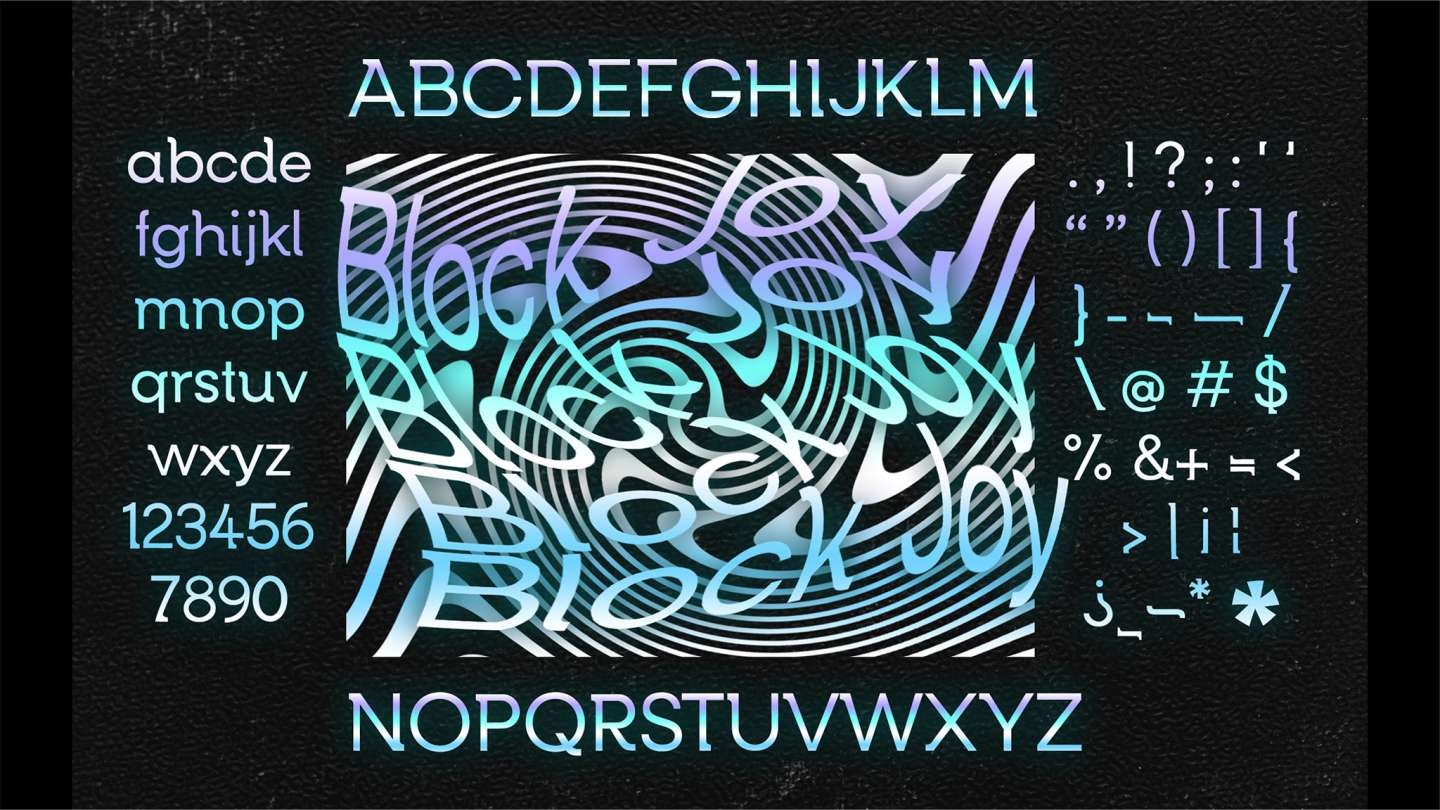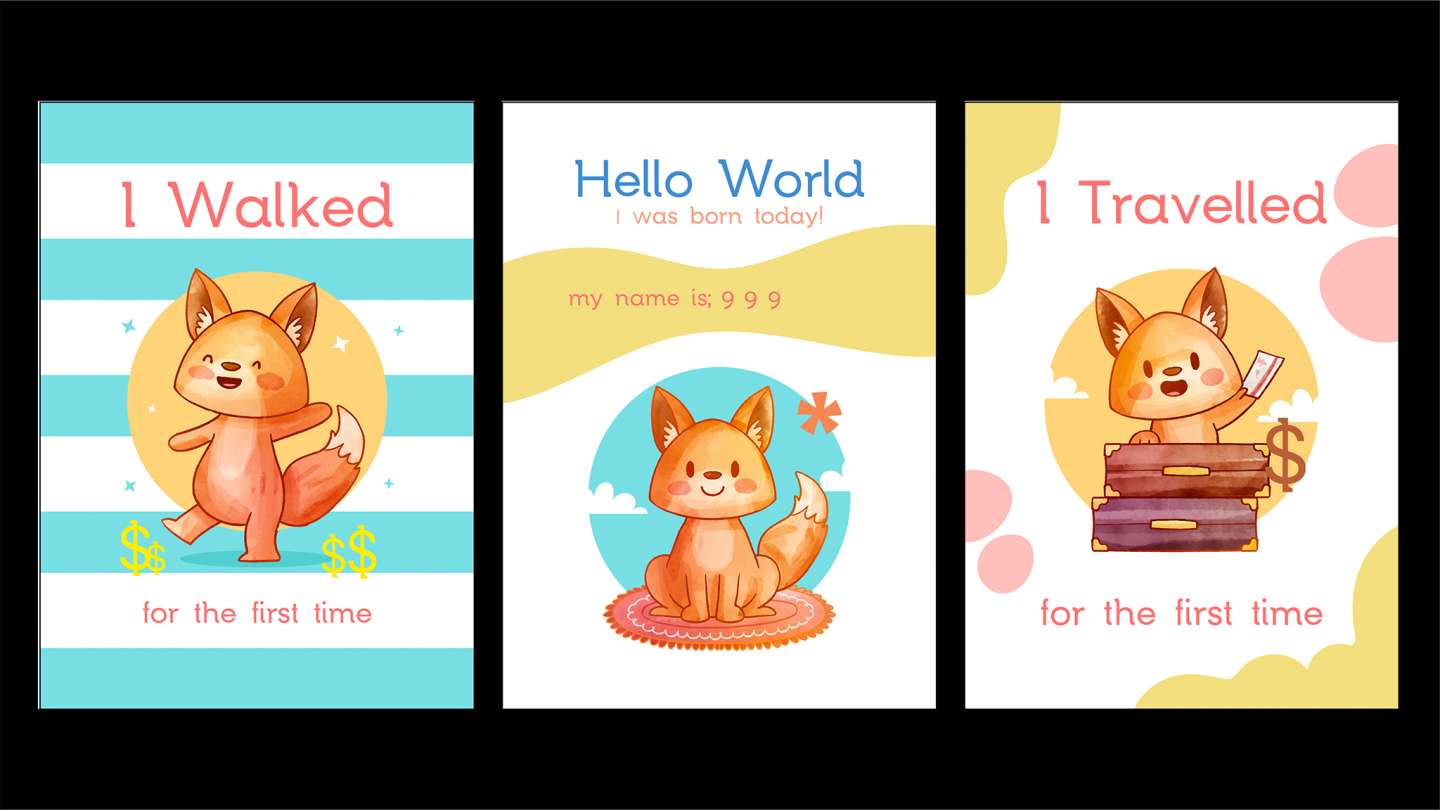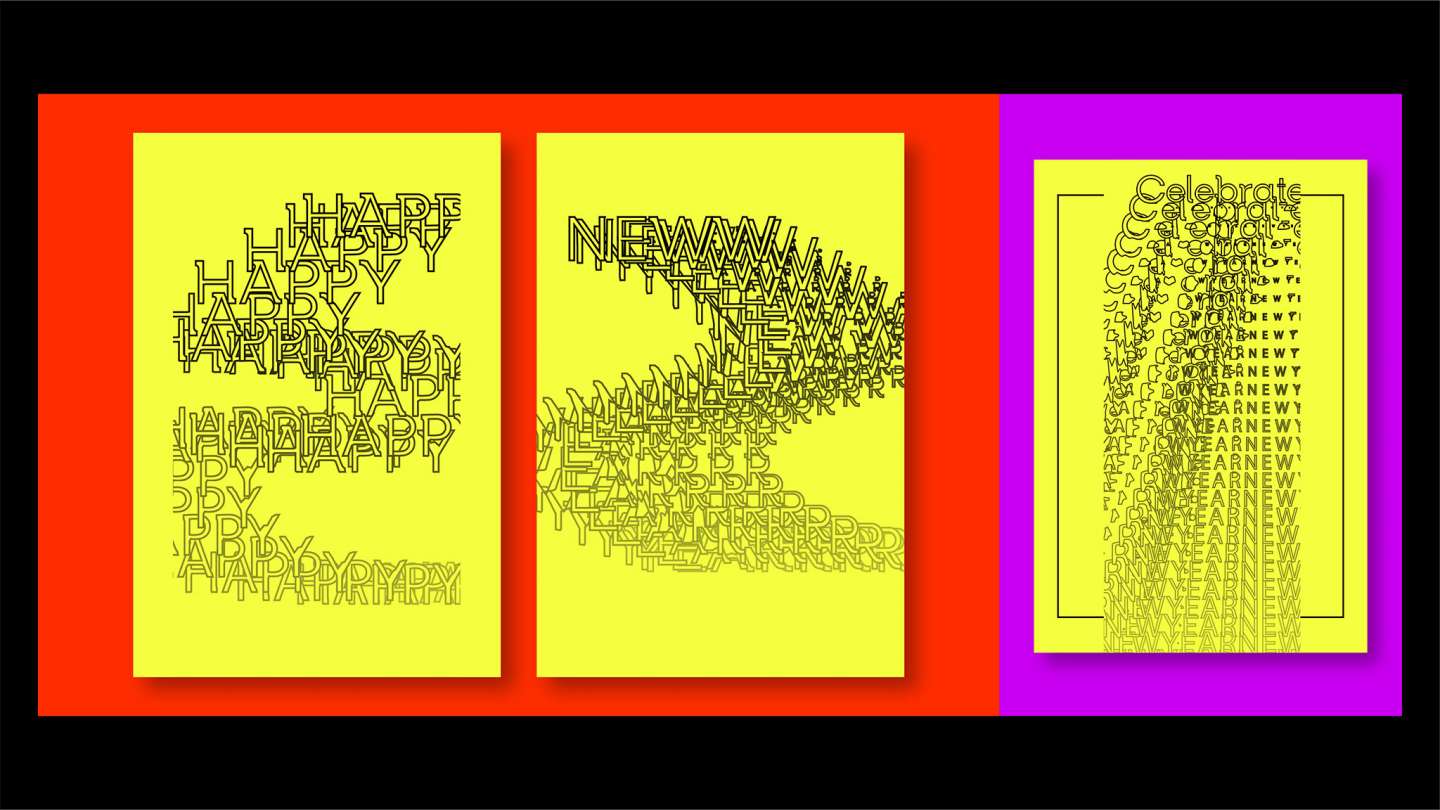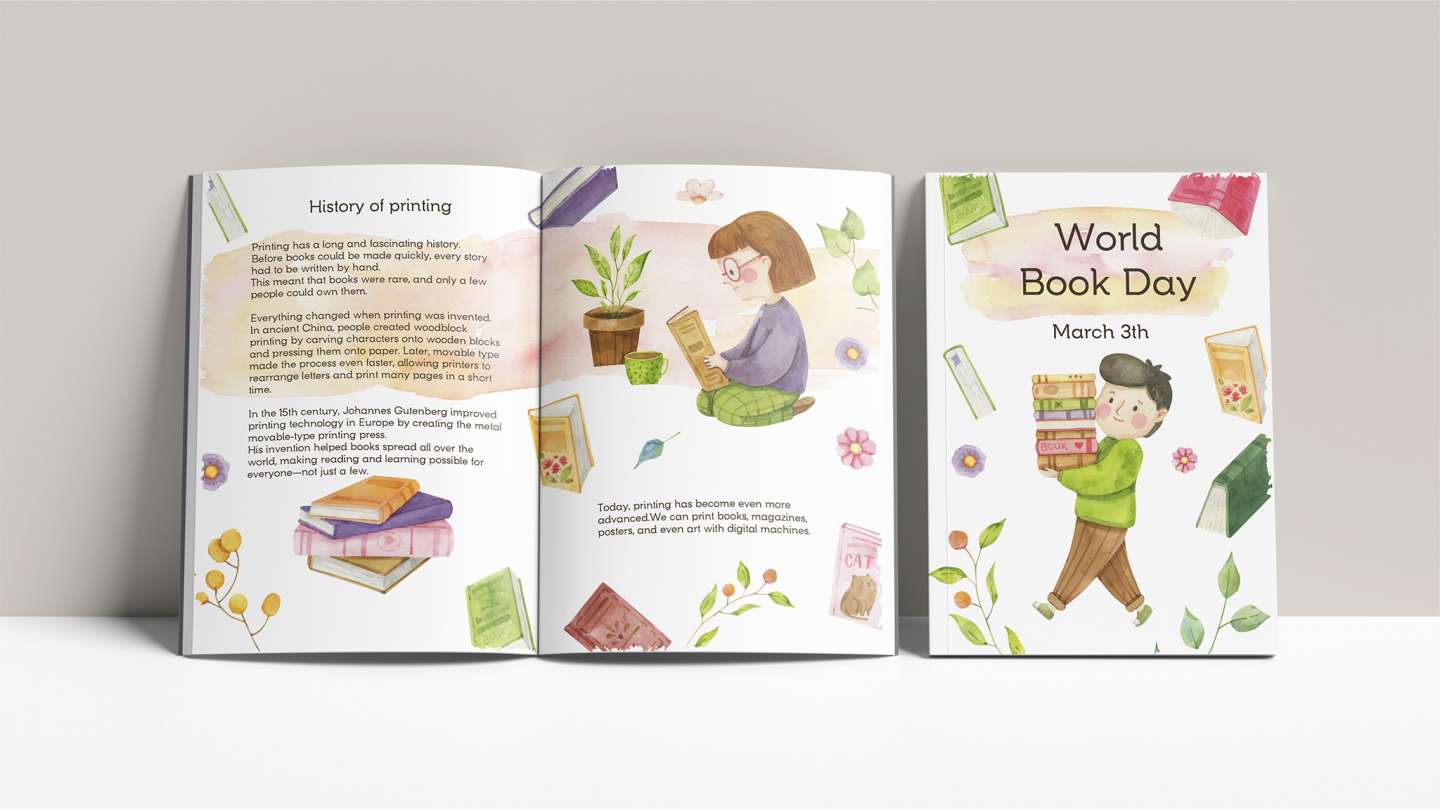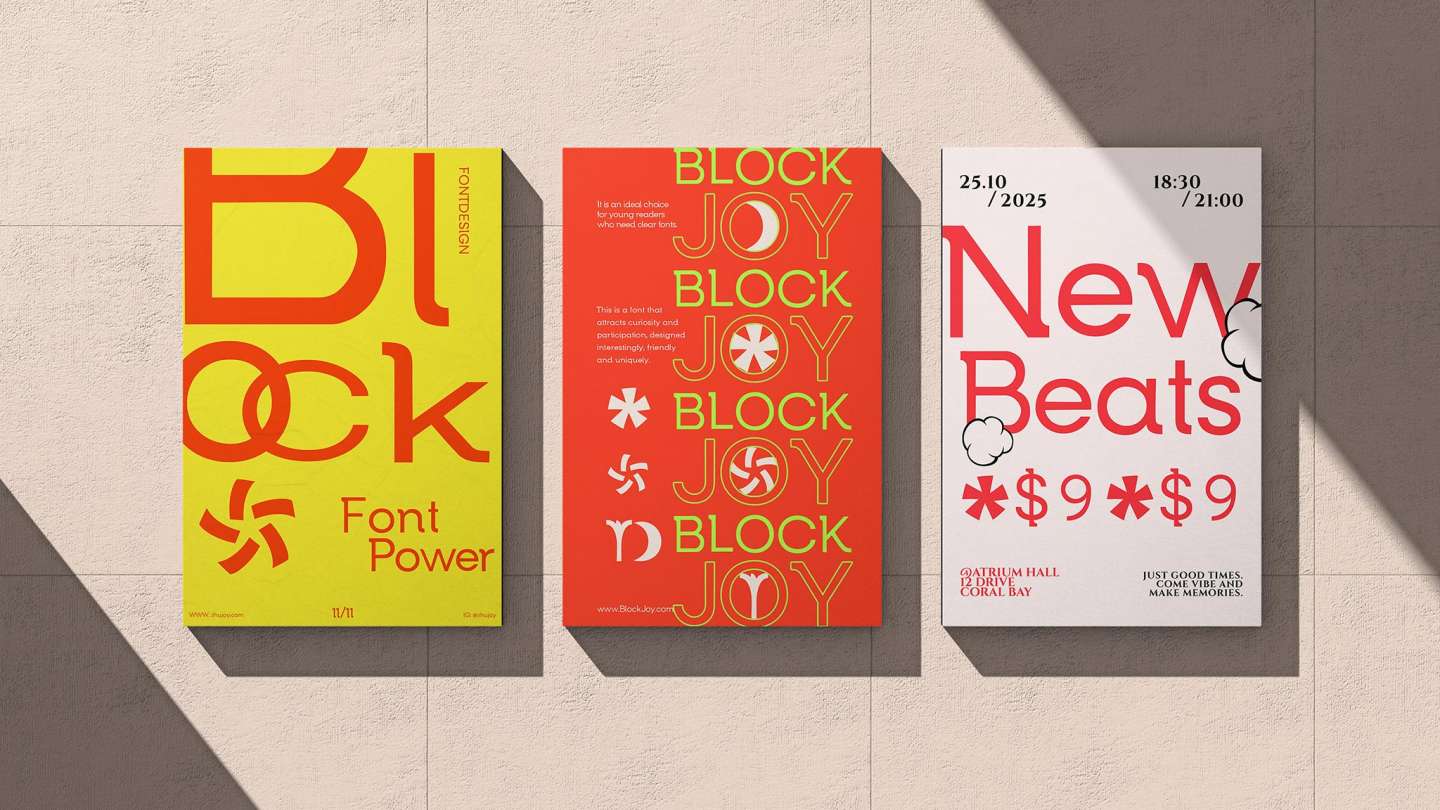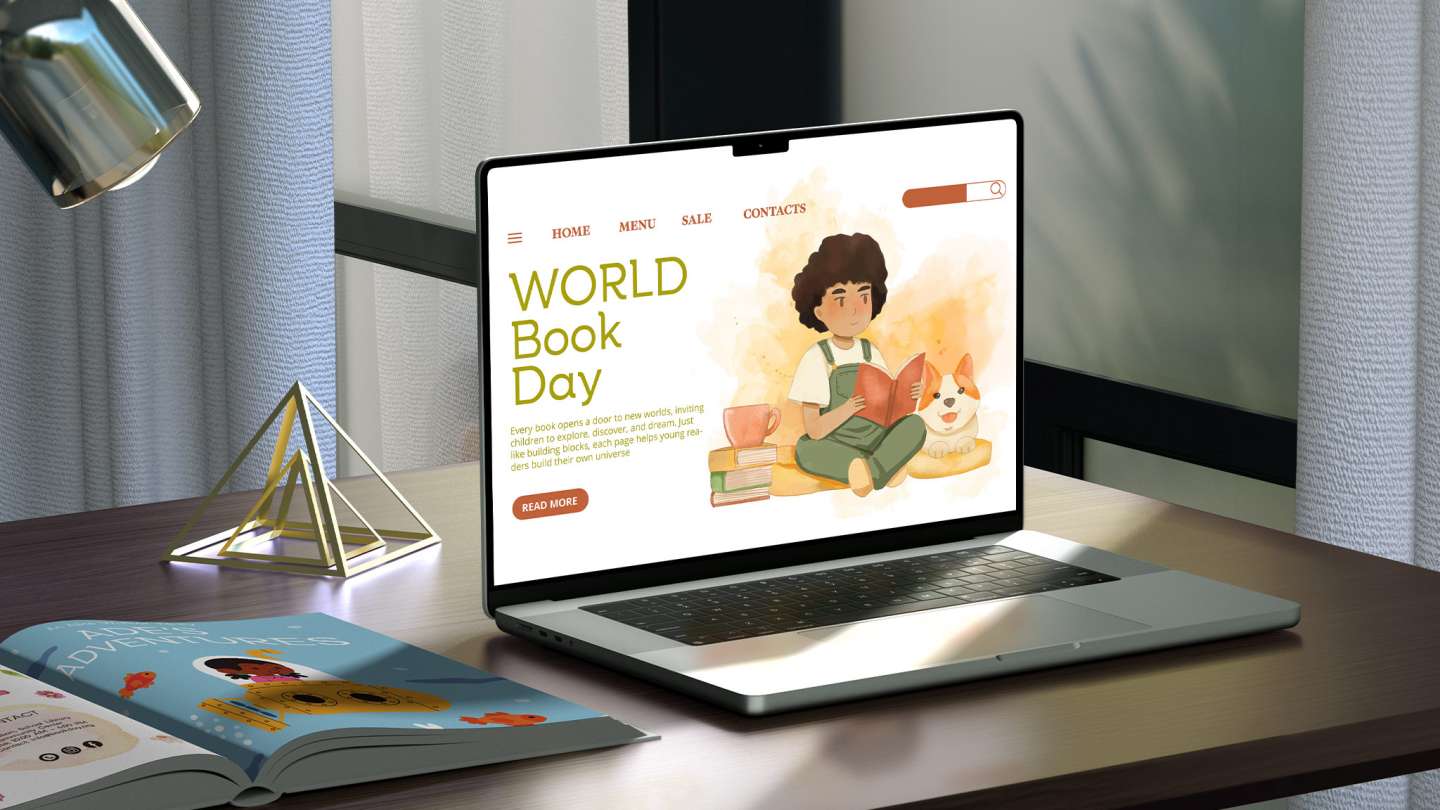
BlockJoy is a playful geometric typeface designed for children’s books and learning materials, combining clear structure with a friendly visual rhythm.
Its modular shapes support readability while adding a sense of fun, making reading more engaging and accessible for young audiences.